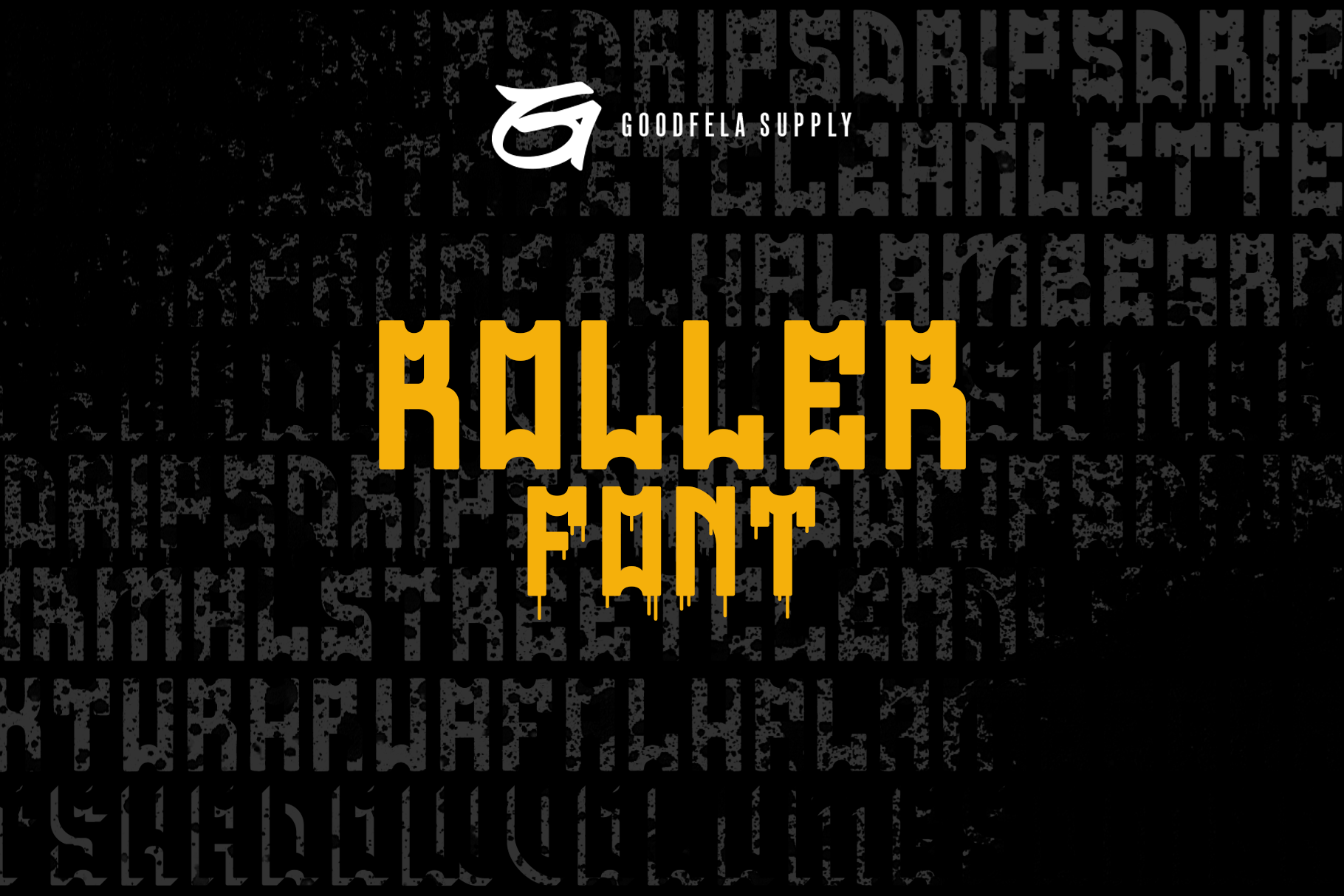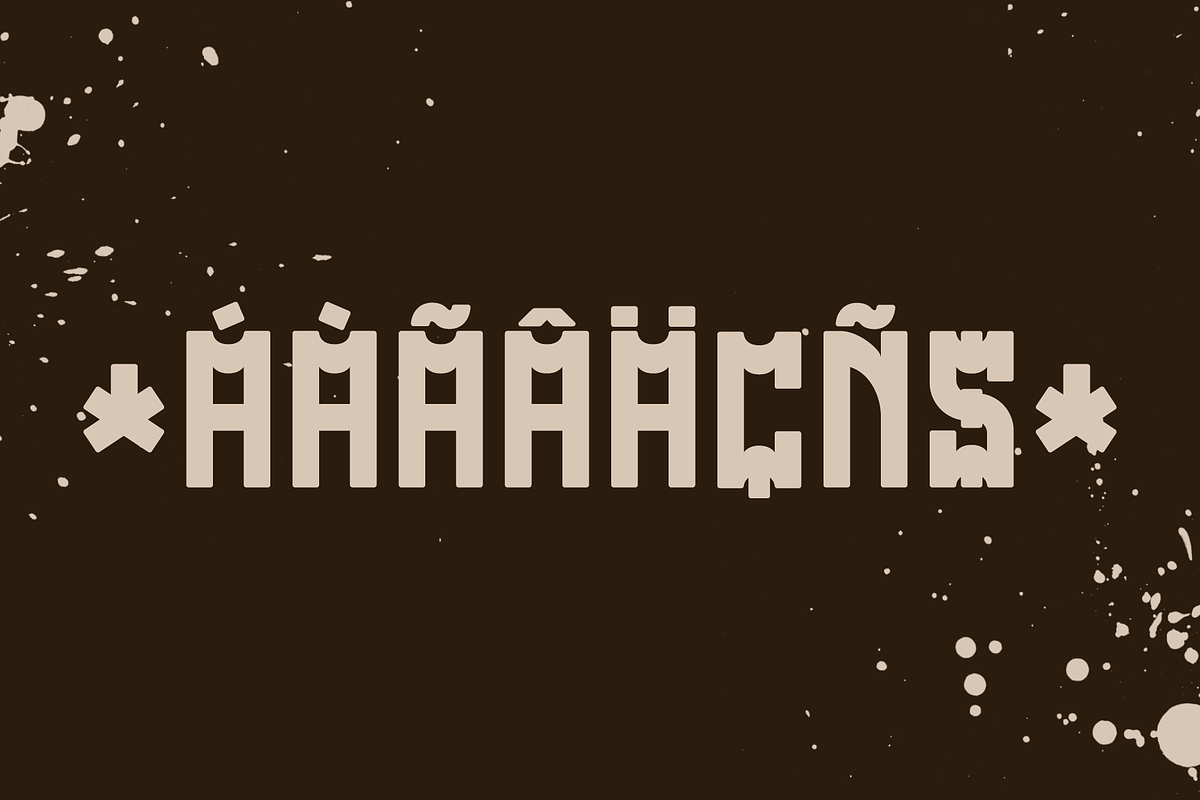
Roller Font
Roller is inspired by the letters of graffiti in Brazil. This style of street writing relies on straight and heavy lines.
- 5 styles: drip, rough, regular, shadow, stencil
- 123 glyphs